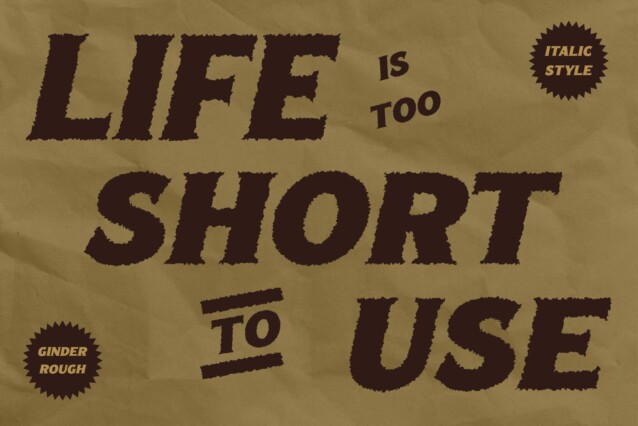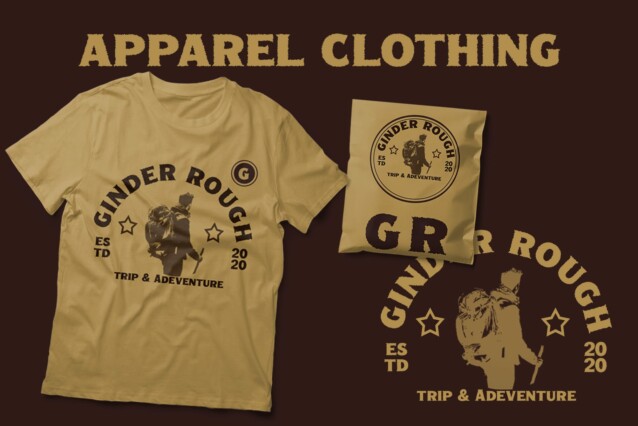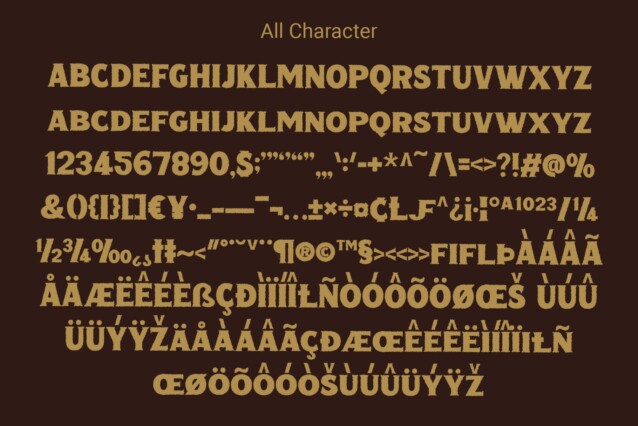
Ginder Rough Font
Ginder Rough Font: Vintage-Inspired Display Typeface. Ginder Rough presents a bold serif design characterized by low contrast, lending it a robust and impactful appearance suitable for display purposes.
Rugged Charm with Rough Effects
Infused with rough effects, This font exudes a rugged charm that evokes vintage aesthetics. Each letter bears subtle imperfections, adding character and authenticity to the typeface.